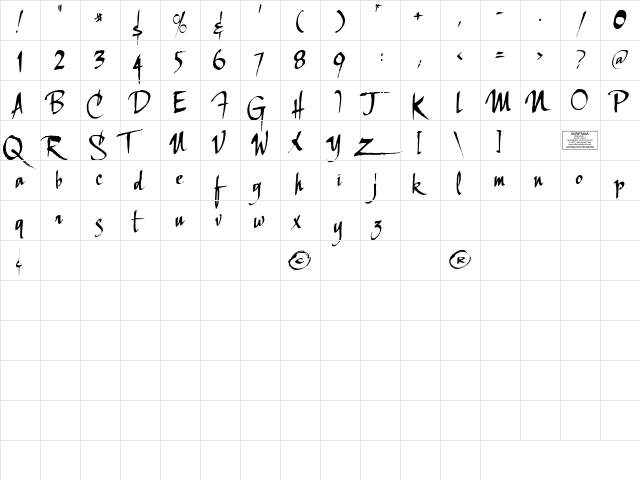
LHFScriptana COND Medium
Design Context for LHFScriptana COND Typeface
LHFScriptana COND brings a calligraphic fluidity to the page — its connecting strokes and expressive curves give it an unmistakably human quality.
Font Pairing: Combine LHFScriptana COND with a simple geometric sans for maximum contrast — the tension between flowing curves and clean structure is a classic typographic pairing.
Pro Tip: Pair LHFScriptana COND with a clean sans-serif for supporting text. The contrast between fluid script and geometric structure creates an elegant typographic hierarchy.